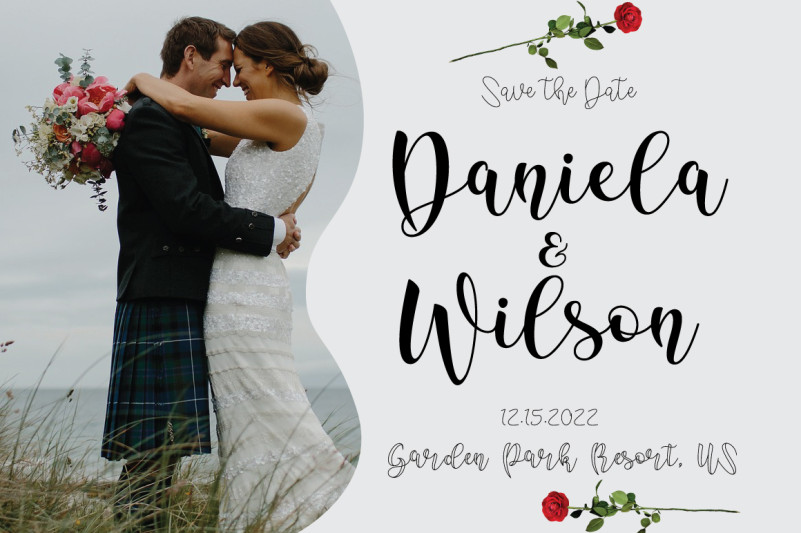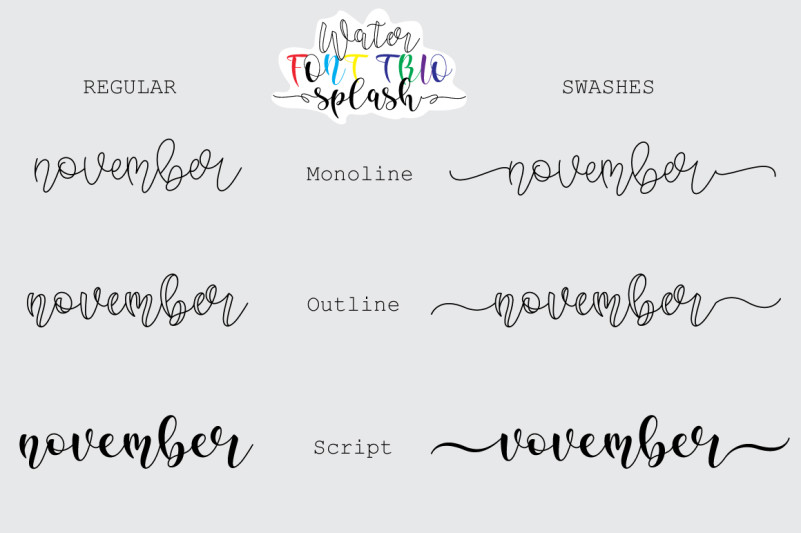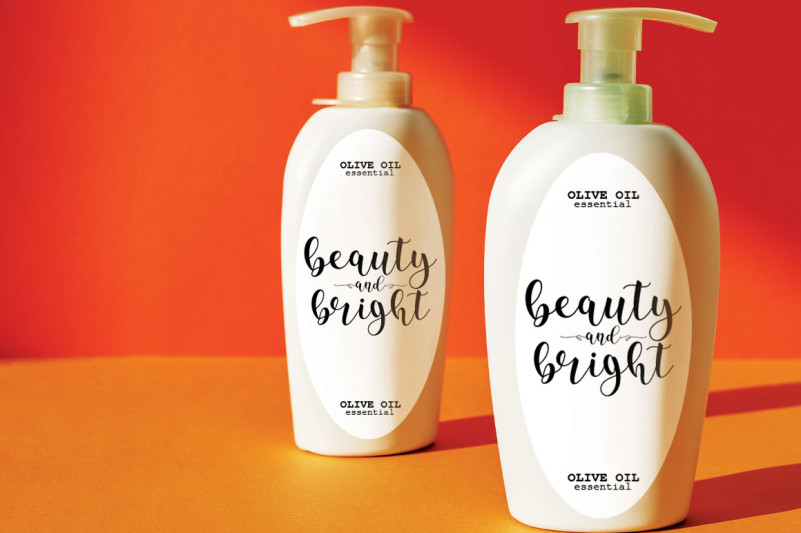
Water Splash Font Trio
Water Splash Handwritten Font is a bouncy, cute, and playful handwritten font trio. They can either it can be used in the same design or separately. Water Splash is the perfect font for any design such as crafting, wedding invitations, stickers, sublimation, t-shirt designs, quotes, and many more. This font is PUA encoded, which means you can access all of the glyphs and swashes with ease!